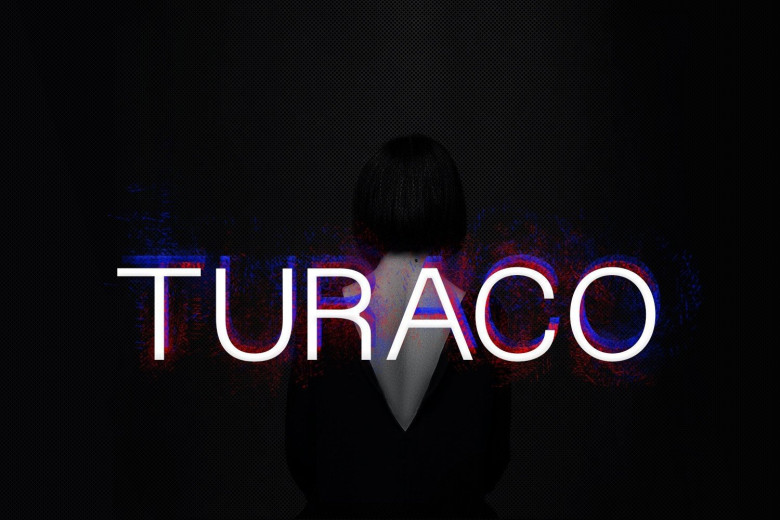
Turaco Font
Turaco is a gorgeous modern font with clean lines, sharp edges and a style that is both practical and functional. It works well as an all-around font for logos, wedding invitations, quotations, advertisements and print publications. It’s widely used in journals and typing articles for consistent lowercase ascenders.
What really makes Turaco a special font is the small caps (available via the lowercase letters). Each small cap is the same thickness as the uppercase ones, making it super simple to make wonderful logos. It fits perfectly with any logo, product name, poster or design that you may want to create for it.
When you talk about it, words like elegant, minimal, uptown and fresh come to mind. It’s great for clothing lines, fashion photography, signatures, album covers, magazines, social media and ads among other things. It is a powerful, individual and personalized typeface series.
An elegant serif font with a thin, stylish and unique character line.
Turaco Sans Serif Font Family